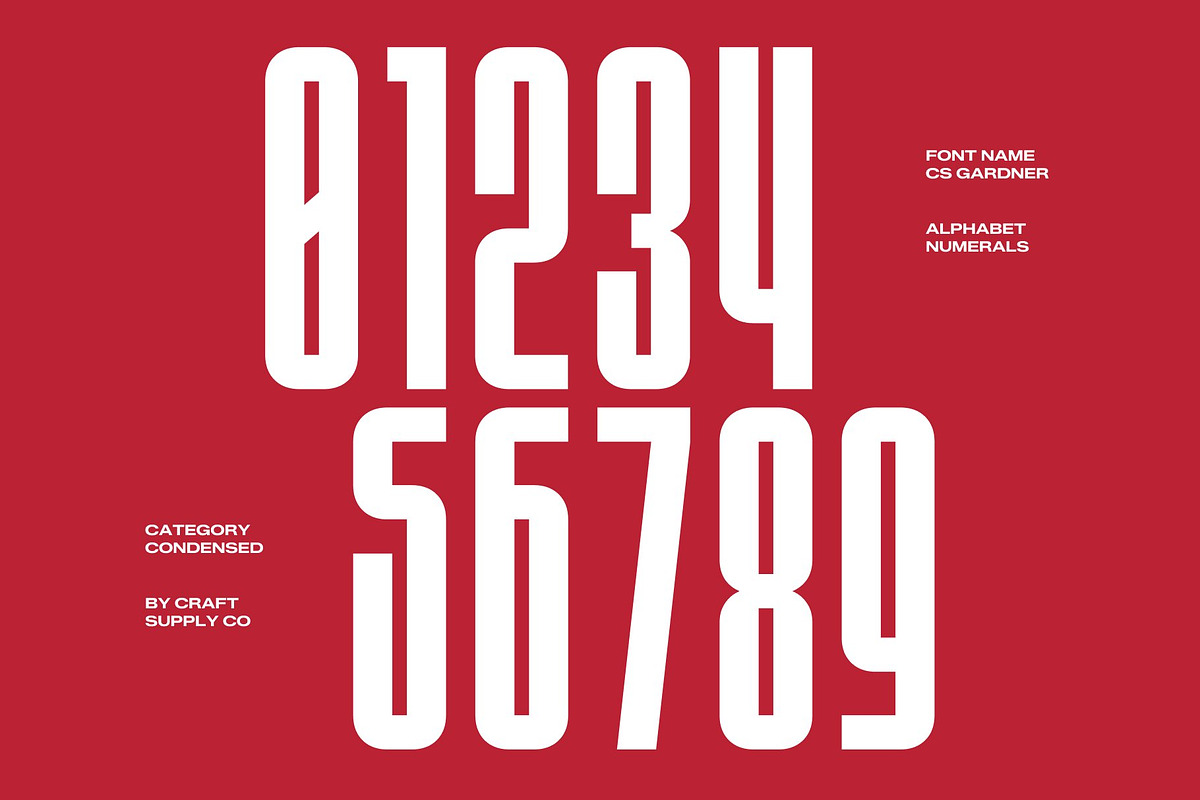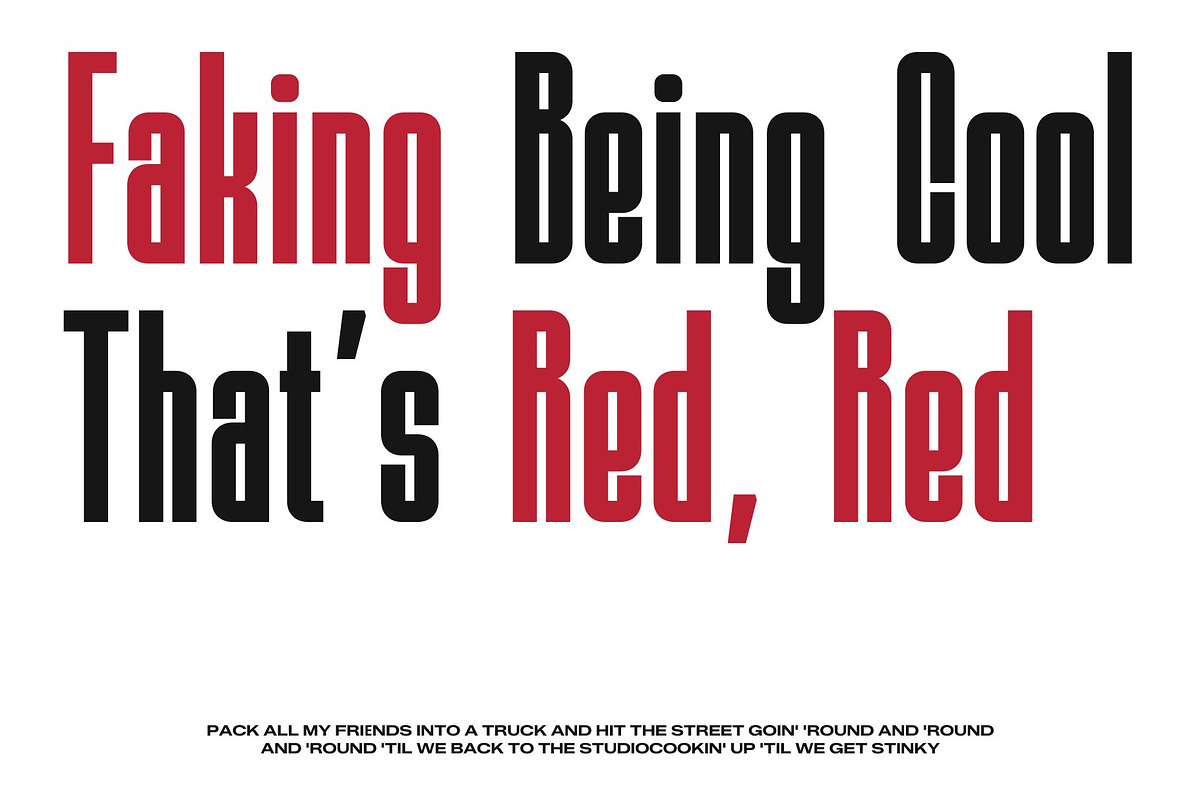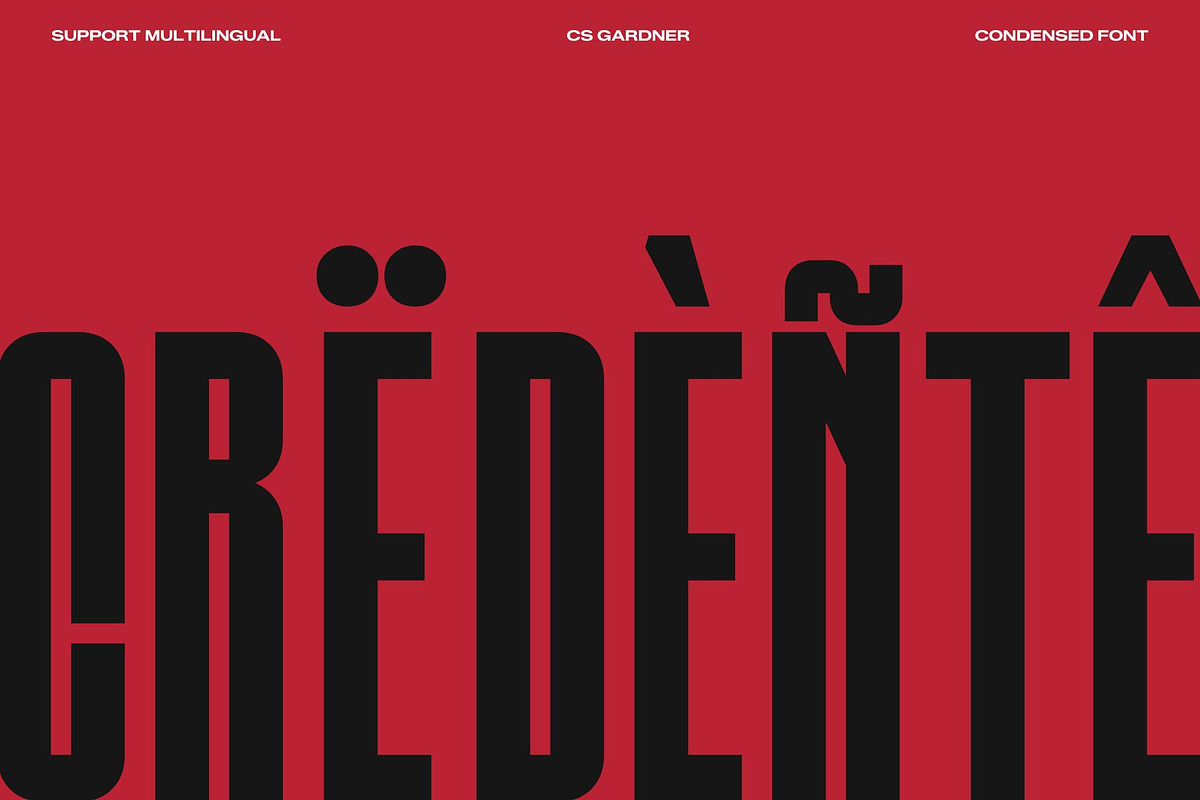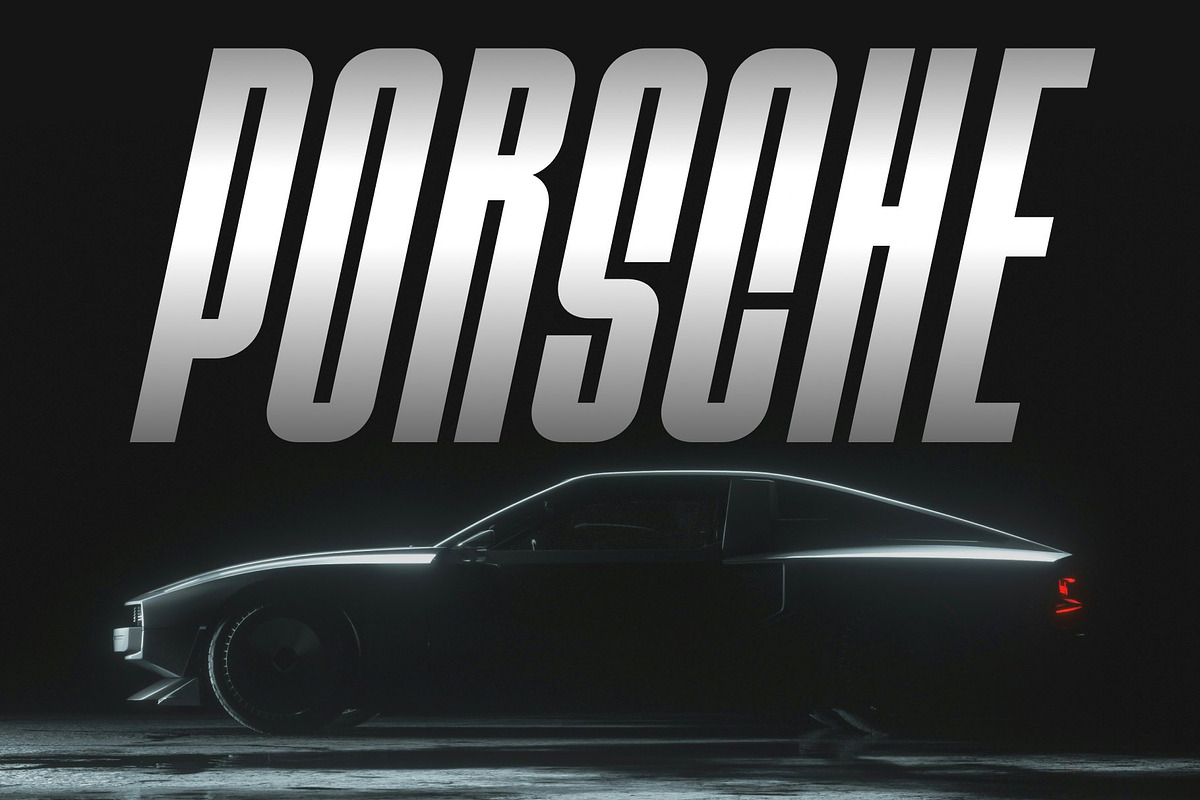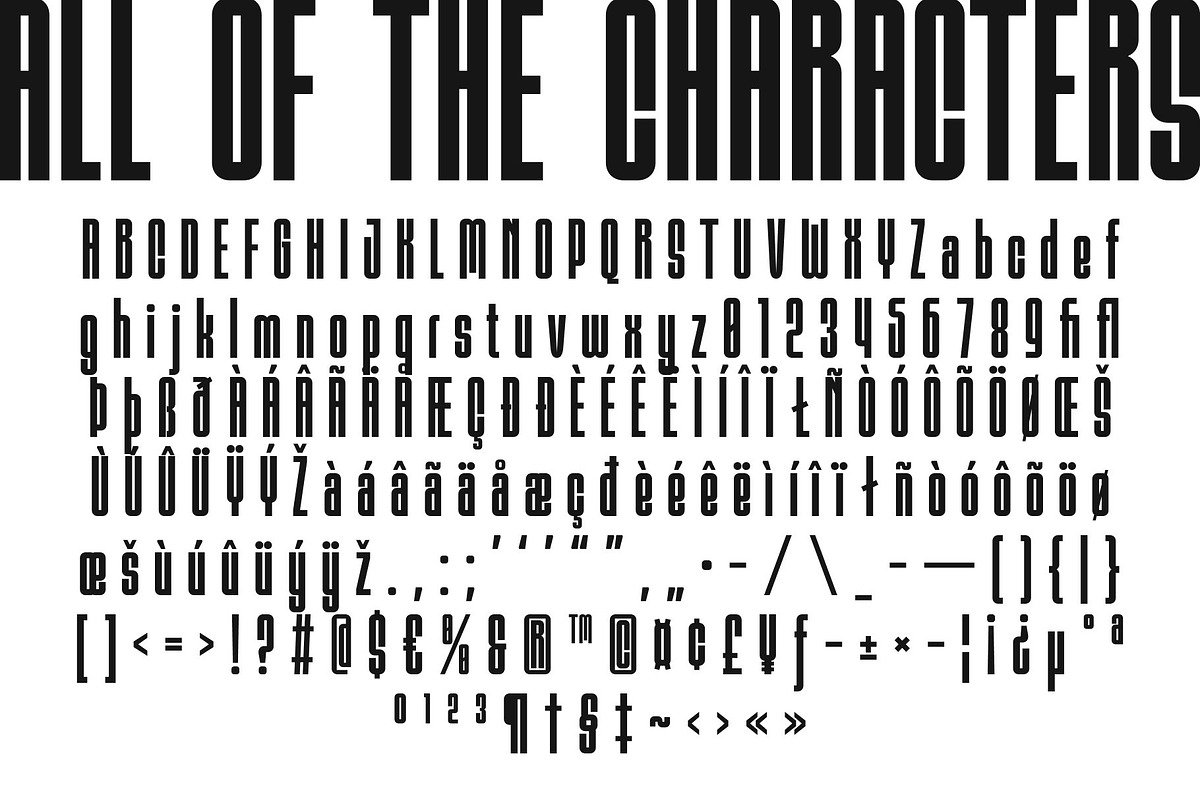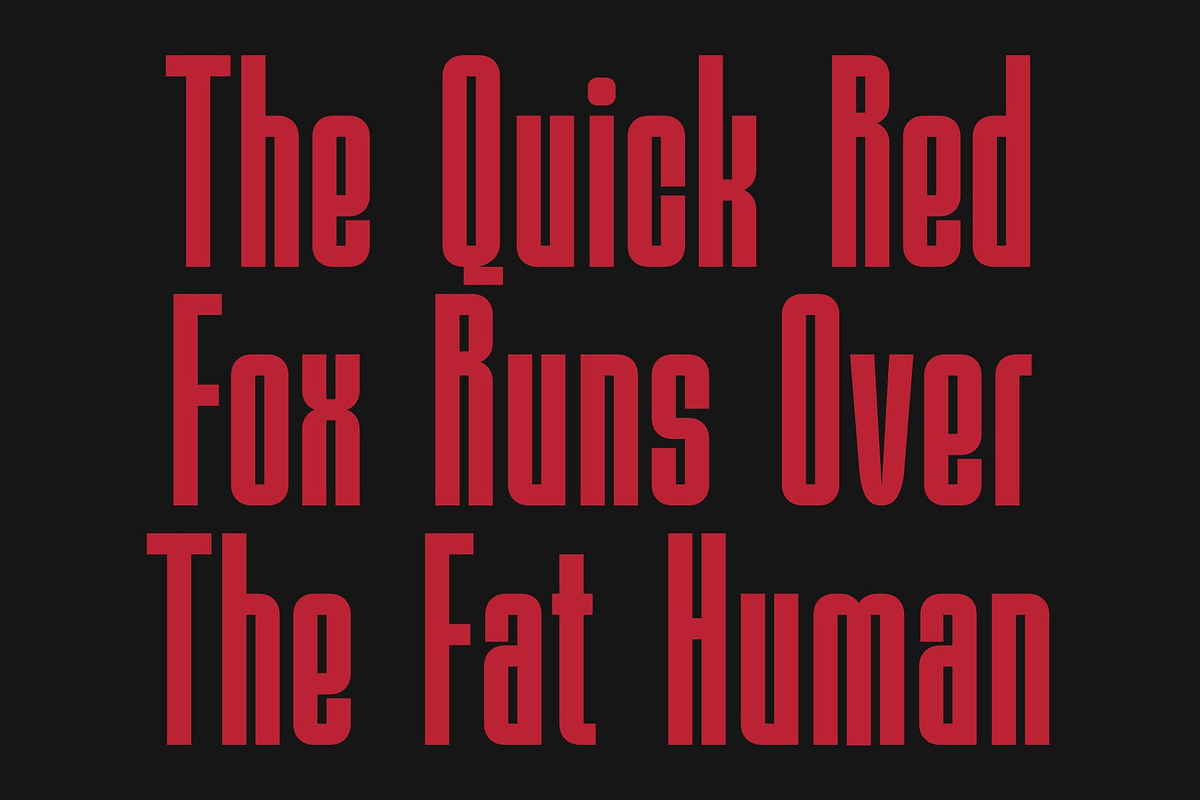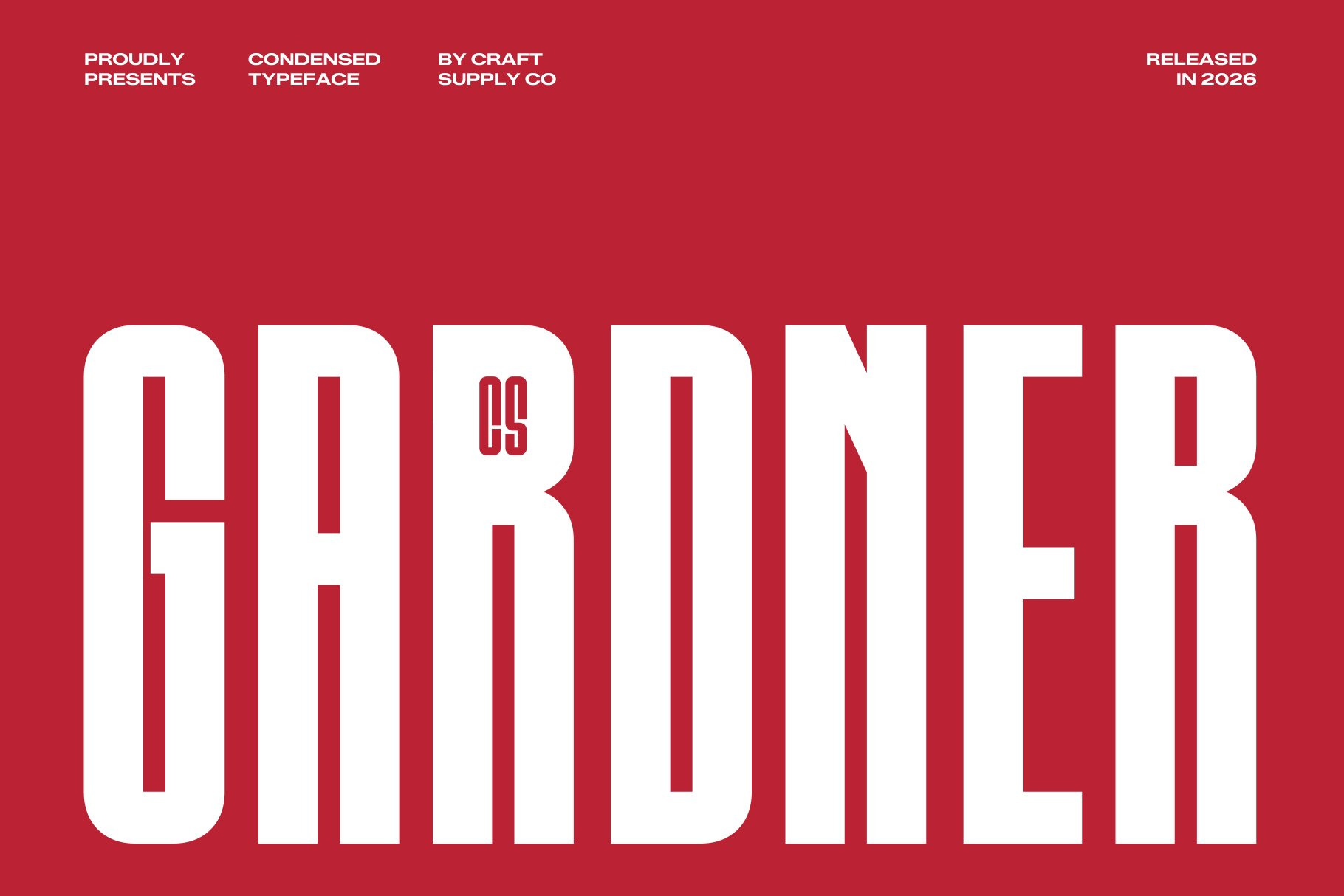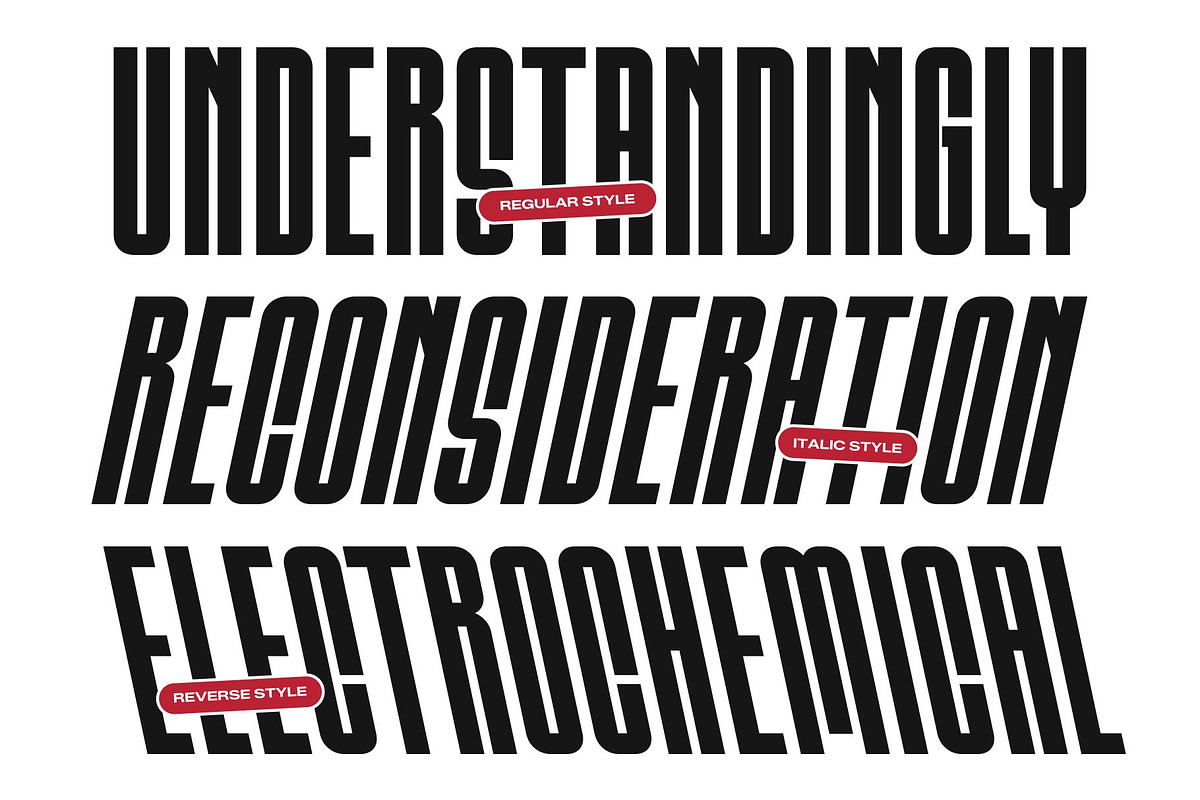
CS Gardner – Condensed Font
CS Gardner – Condensed Sans Serif with Modern Impact
Condensed Sans Serif for Strong Visual Presence This is a compact and modern condensed sans serif font designed to create powerful visual impact in limited space. With its streamlined proportions and confident structure, this typeface delivers bold clarity while maintaining a clean and contemporary aesthetic. It is crafted for designers who need typography that communicates quickly, clearly, and effectively.
Engineered for Tight Layouts and Bold Headlines The condensed design allows more content to fit into narrow spaces without sacrificing readability. Each letterform is carefully balanced to appear tall, strong, and highly legible, making this font ideal for headlines, posters, and branding where space efficiency is essential. This structure ensures your message remains clear and prominent in any layout.
Clean Shapes with Contemporary Confidence This font features precise lines and modern forms that create a sleek and professional impression. The simplicity of the design allows it to adapt easily across a wide range of visual styles, from minimal layouts to bold and energetic compositions. Its confident presence helps text stand out while maintaining a refined look.
Perfect for Headlines, Posters, and Branding From impactful posters to modern branding and digital campaigns, this font offers versatility and reliability. Its condensed proportions and contemporary character make it a dependable choice for projects that require strong typography with a clean, modern voice.
CS Gardner Regular
CS Gardner Italic
CS Gardner Reverse Italic